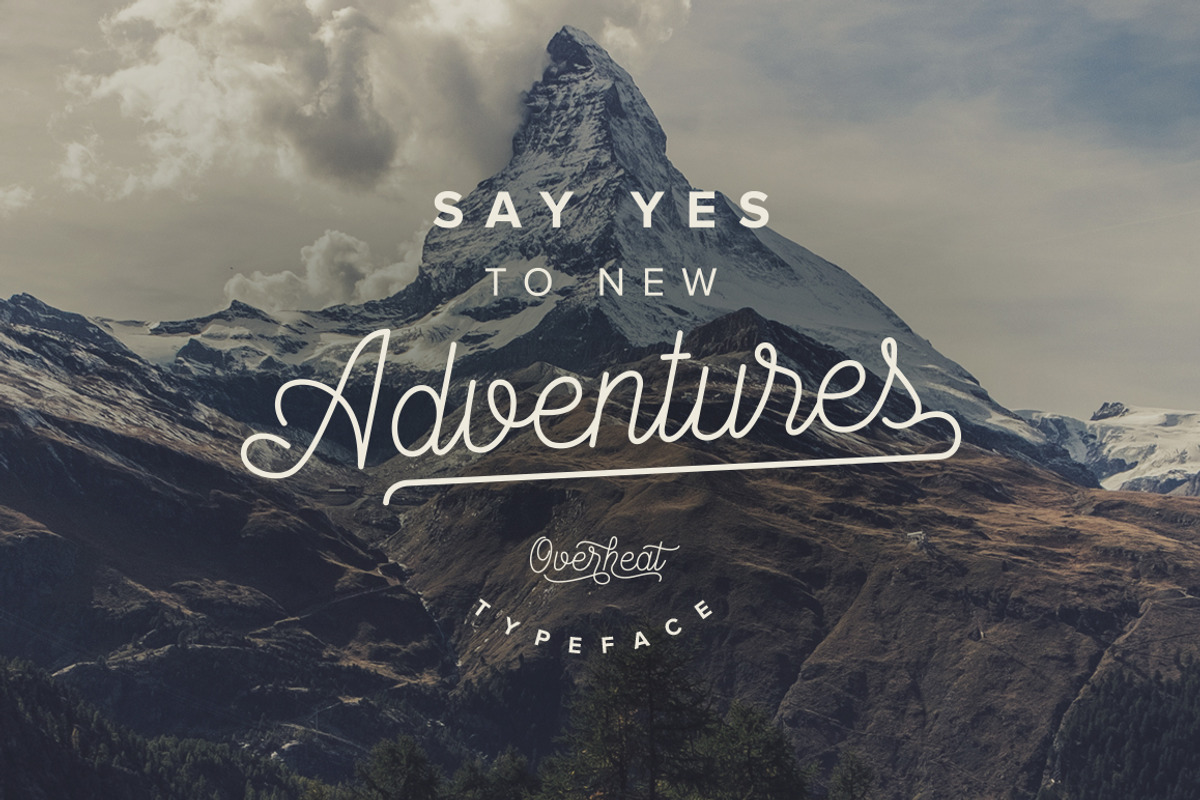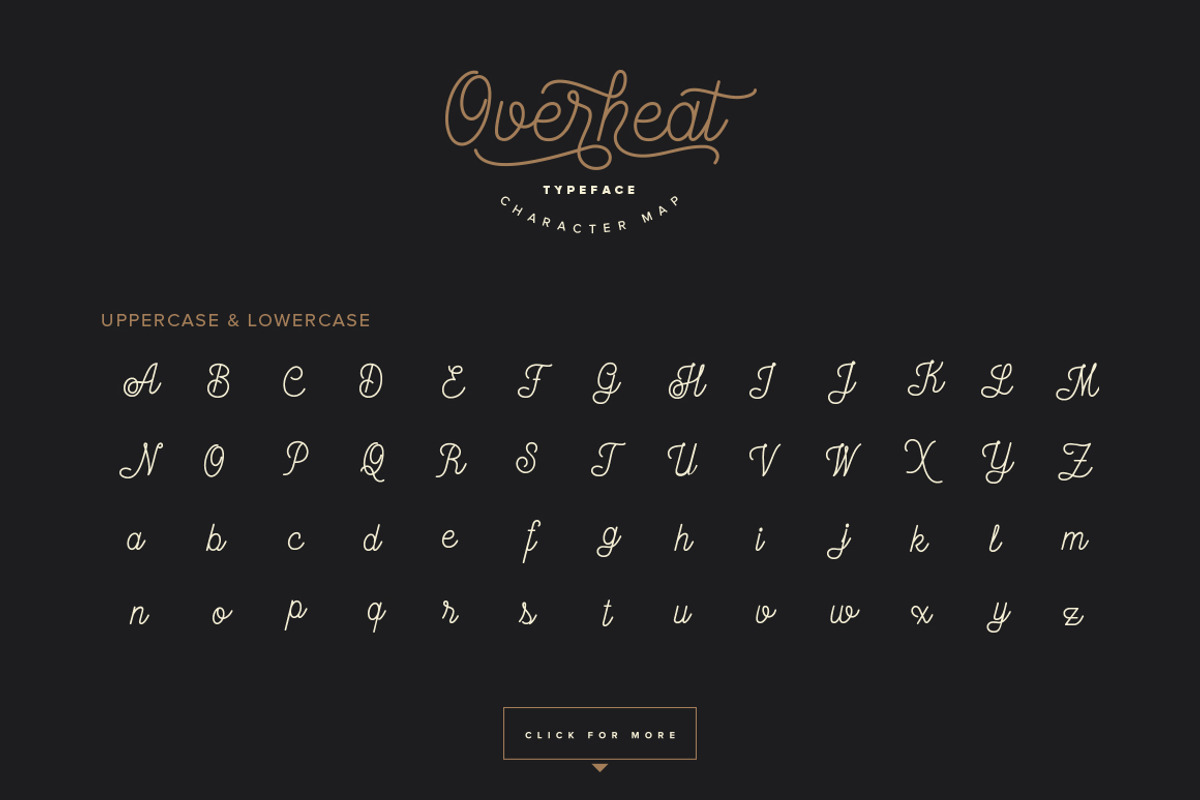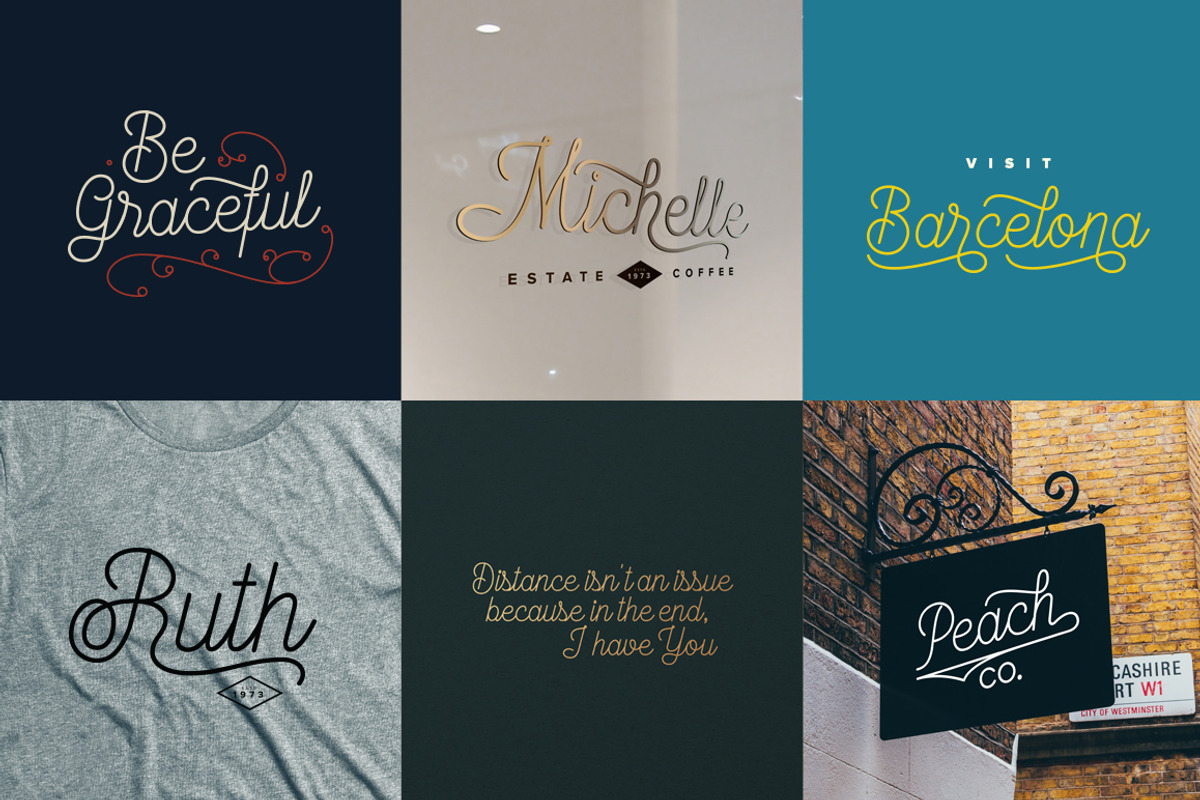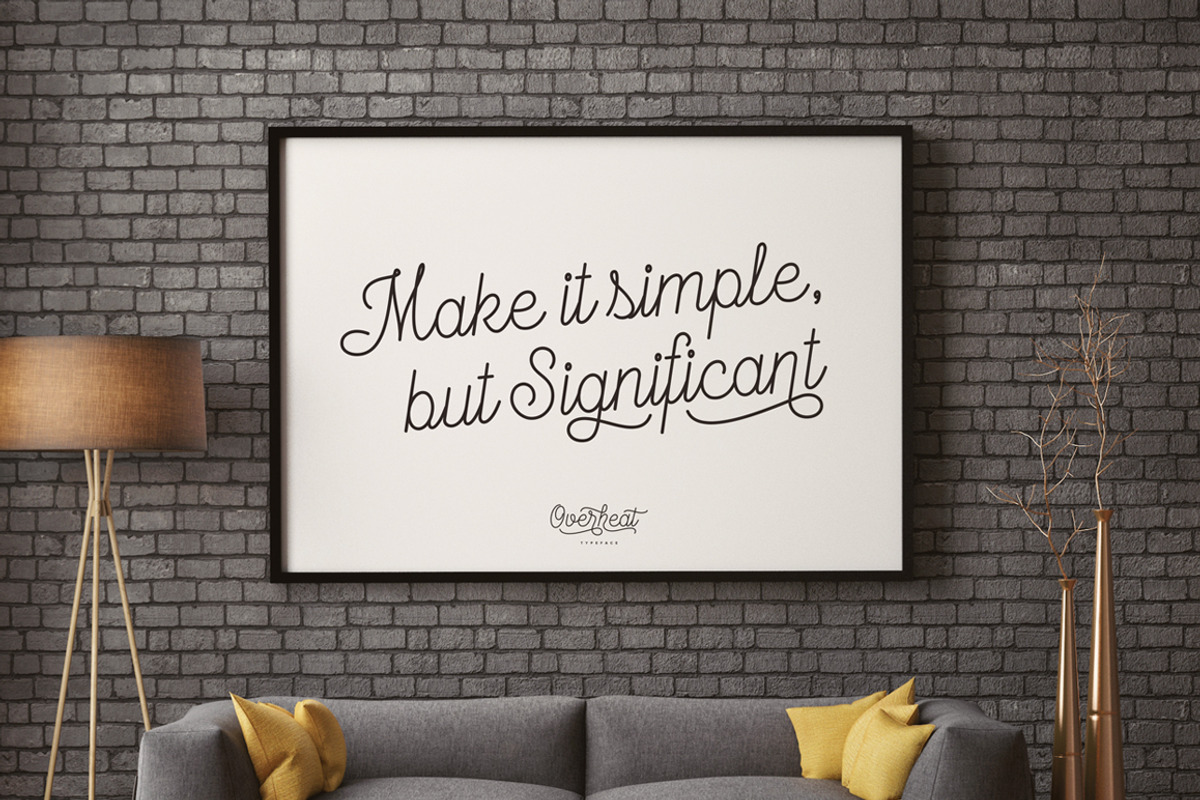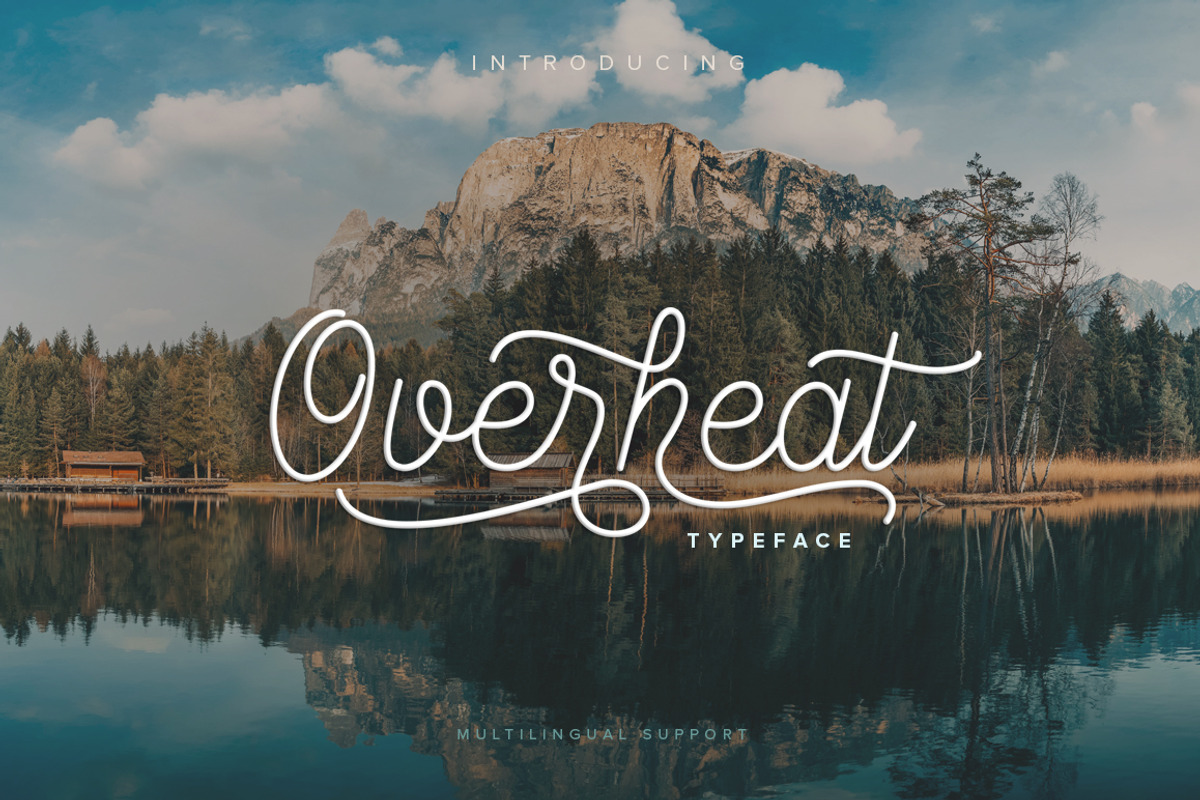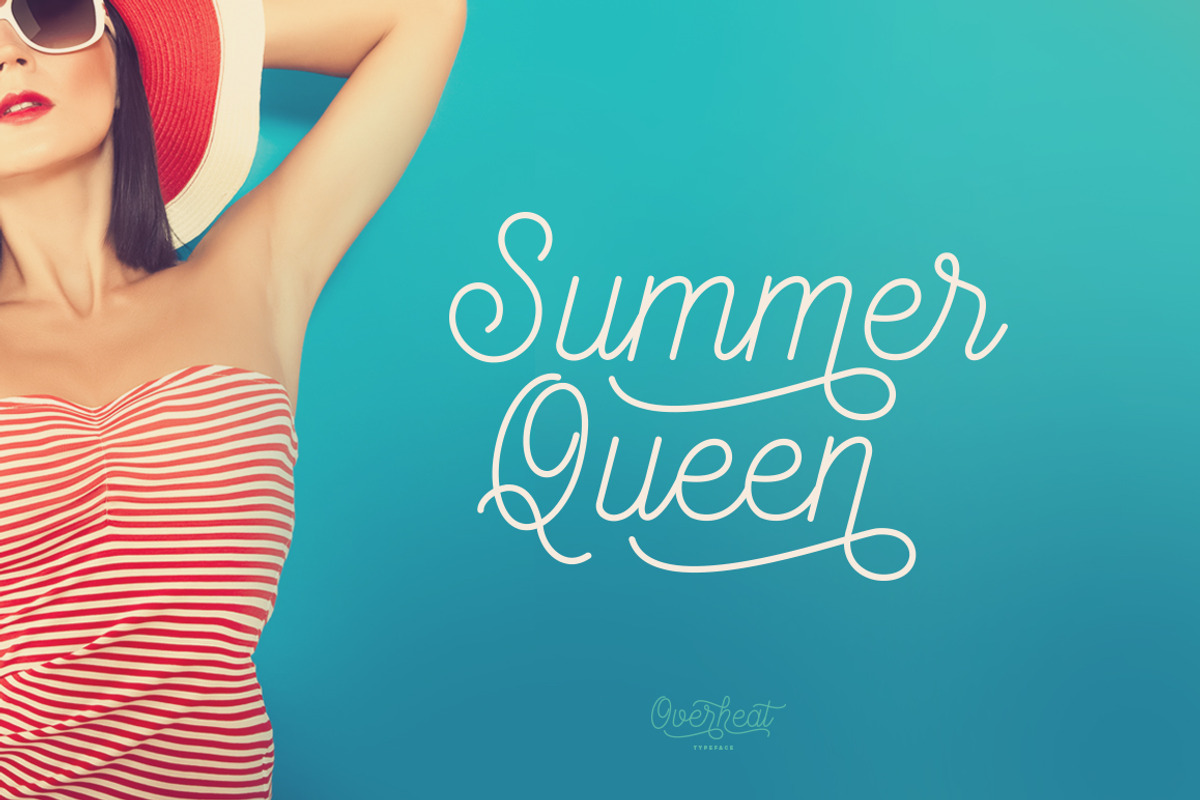
Overheat Typeface
Overheat Typeface by Liviu is a font selected for branding, posters, packaging, typography.
- Stylistic alternatives & swashes
- International characters (Multilingual)
- Punctuation & symbols
- OpenType Features
Why Overheat Typeface is worth a look
Overheat Typeface by Liviu fits naturally into Branding, posters, packaging, typography.